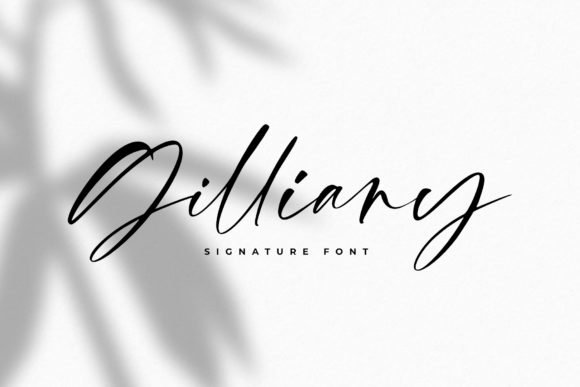
Gilliany Font: Elevate Your Design with Elegance
There’s something magical about that first spark of creativity, when a new idea bursts forth from the depths of your imagination. For designers, it’s that moment when a concept begins to take shape, and the possibilities seem endless. It’s a feeling that can be captured and conveyed through the perfect font – and that’s exactly what Gilliany Font is all about.
Gilliany Font is a beautifully crafted handwritten font that exudes elegance and sophistication. Its unique blend of classic and modern elements makes it the perfect fit for creating original and outstanding designs. Whether you’re working on a branding project, a wedding invitation, or a blog post, Gilliany Font is sure to add a touch of magic to your work.
As a valuable tool for designers, Gilliany Font offers a level of customization and versatility that’s hard to find in other fonts. With its wide range of styles and sizes, you can experiment with different looks and feels until you find the perfect fit for your project. Whether you’re a seasoned pro or just starting out, Gilliany Font is an essential addition to any designer’s toolkit.
Gilliany Font Key Features
- Unique Characteristics: The font features a distinctive, hand-drawn style with subtle imperfections, giving it a personal and artistic touch.
- Font Weight: The font comes in various weights, including Light, Regular, Medium, Bold, and Extra Bold, allowing designers to create a range of visual effects and emphasis.
Gilliany Font Review
Gilliany Font is a beautifully crafted, elegant script font. ✨ Its flowing lines and cursive feel make it perfect for adding a touch of sophistication to your designs. The font is highly legible, even at smaller sizes, which is a great advantage.
One of the standout features of Gilliany Font is its wide range of language support, making it an excellent choice for multilingual designs. ✨ Additionally, the font comes in a variety of weights and styles, allowing you to customize your design to suit your needs.
While Gilliany Font is an excellent choice for many projects, there are some limitations to consider. ⚠️ For instance, the font may not be the best choice for projects that require a bold, modern look. Additionally, some users have reported issues with the font’s kerning, which can affect the overall appearance of your design.
Gilliany Font is a high-quality, elegant script font that is perfect for a wide range of design projects. While it may have some limitations, the font’s beauty and versatility make it a great addition to any designer’s toolkit.
- Wide range of language support
- Available in various weights and styles
- Highly legible, even at smaller sizes
- Perfect for adding a touch of sophistication to your designs
Gilliany Font Practical Application Guide
Getting the Most Out of Gilliany Font
To get the most out of Gilliany Font, try pairing it with bold or italic text for emphasis.
Experiment with different font sizes and styles to create a unique and visually appealing design.
Use Gilliany Font for headings and titles to add a touch of elegance to your design.
Gilliany Font is perfect for:
Business cards and marketing materials
Photography and design portfolios
Alternatives to Gilliany Font
The Great Vibes Font is a beautiful, elegant script font that is perfect for creating a whimsical and romantic atmosphere. It’s ideal for wedding invitations, menus, and other special occasions. Great Vibes Font has a more classic and traditional feel compared to Gilliany Font, which has a more modern and playful vibe.
What is the recommended font size for Gilliany Font?
The recommended font size for Gilliany Font is between 12 and 14 points for body text, and 18 to 24 points for headings. However, font size is ultimately a matter of design preference, and you should experiment with different sizes to find the most legible and visually appealing solution for your project.